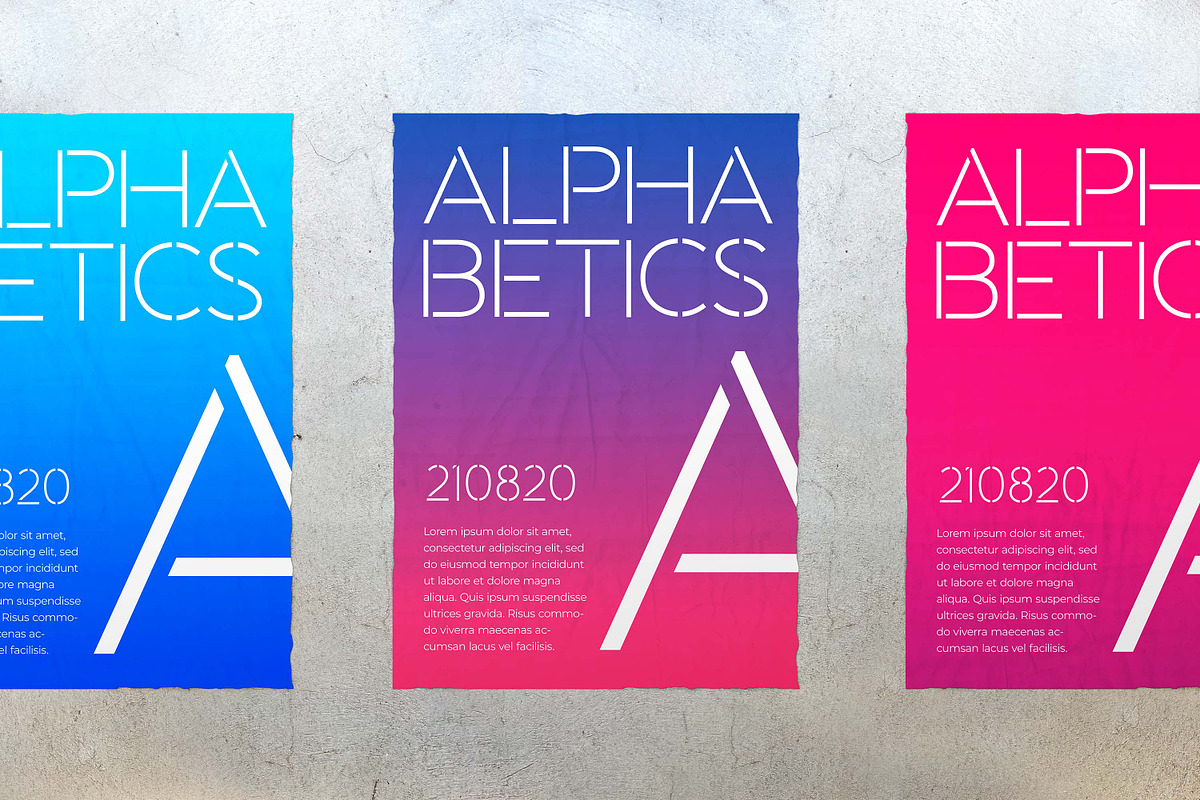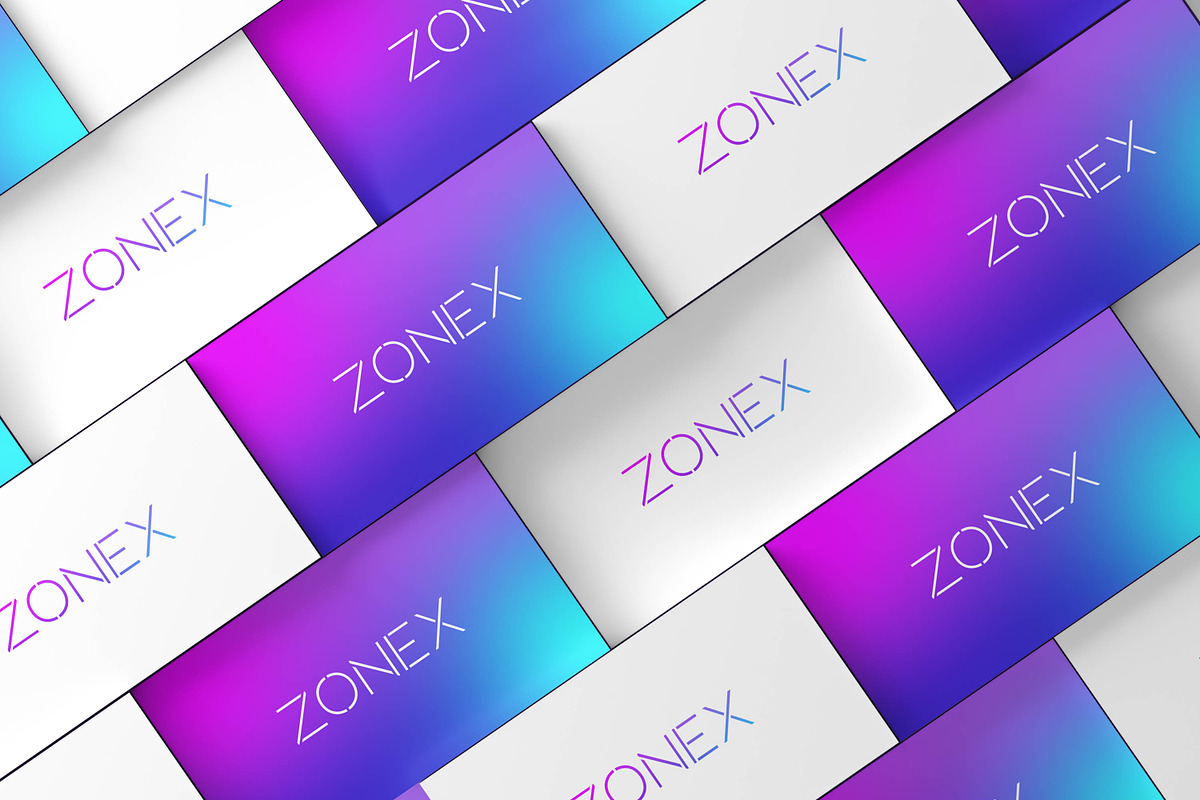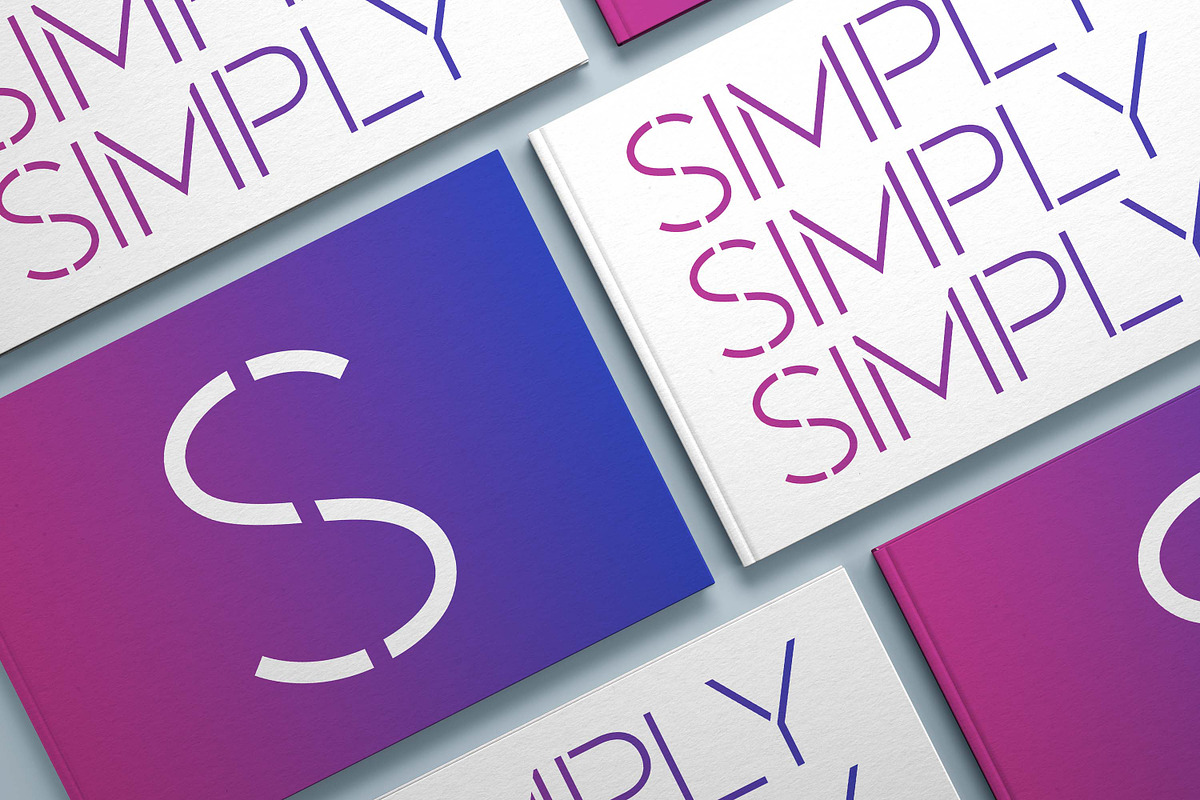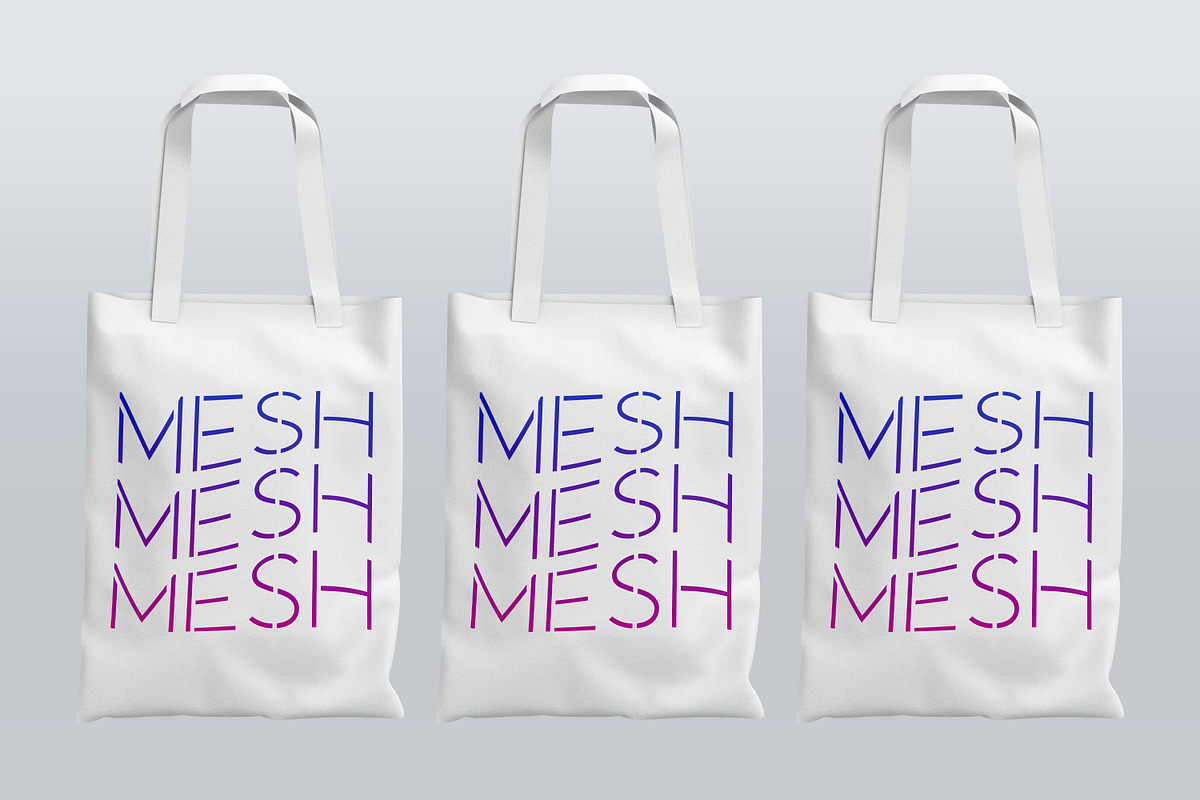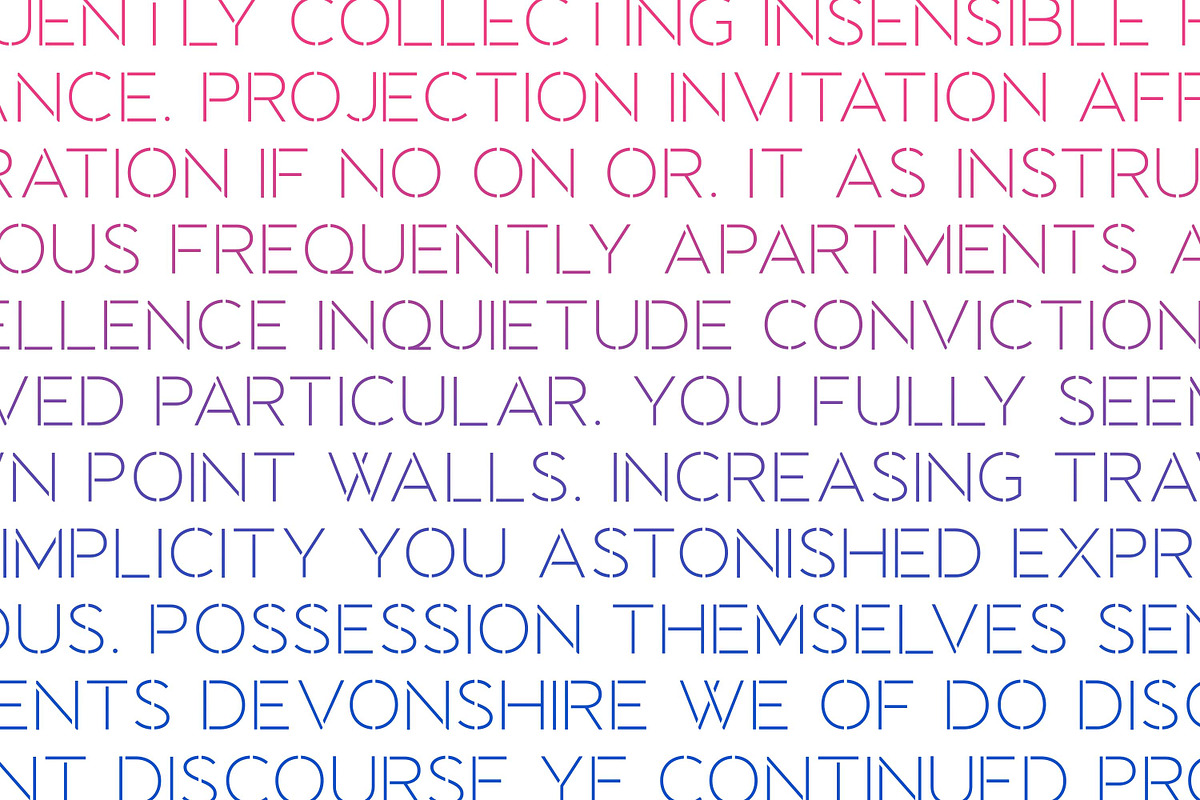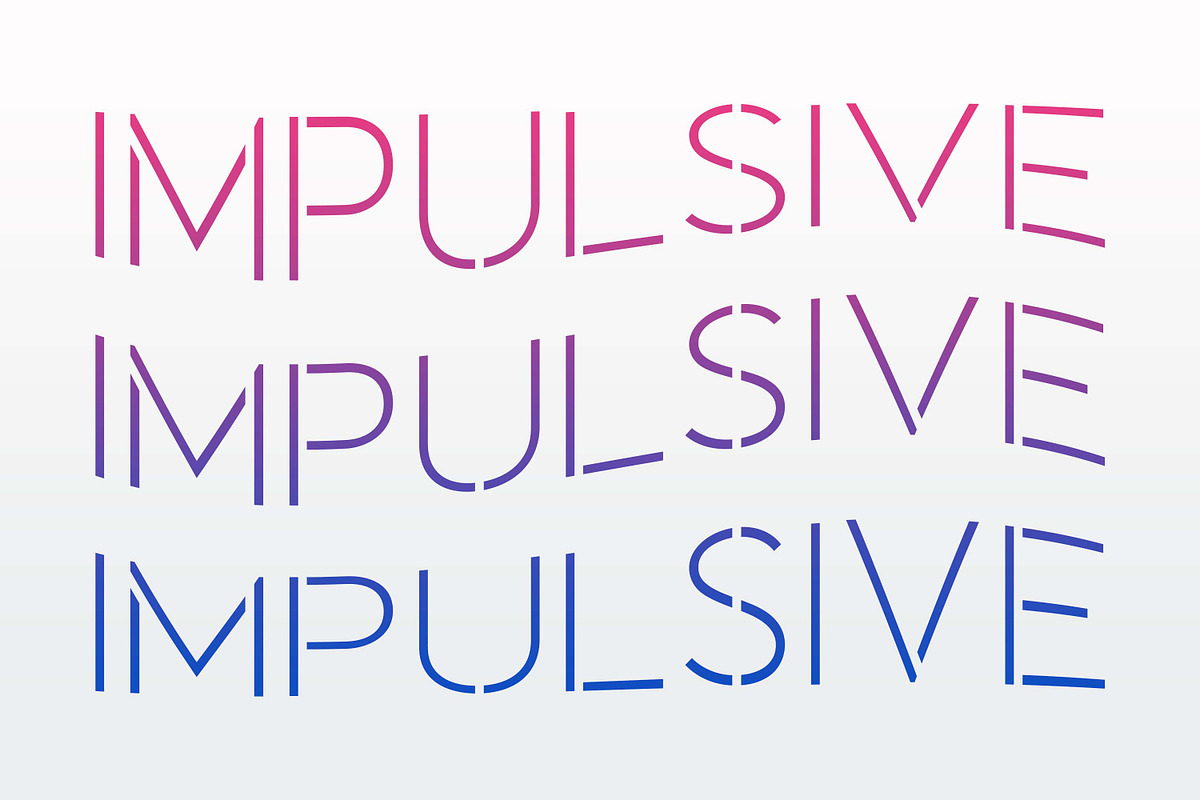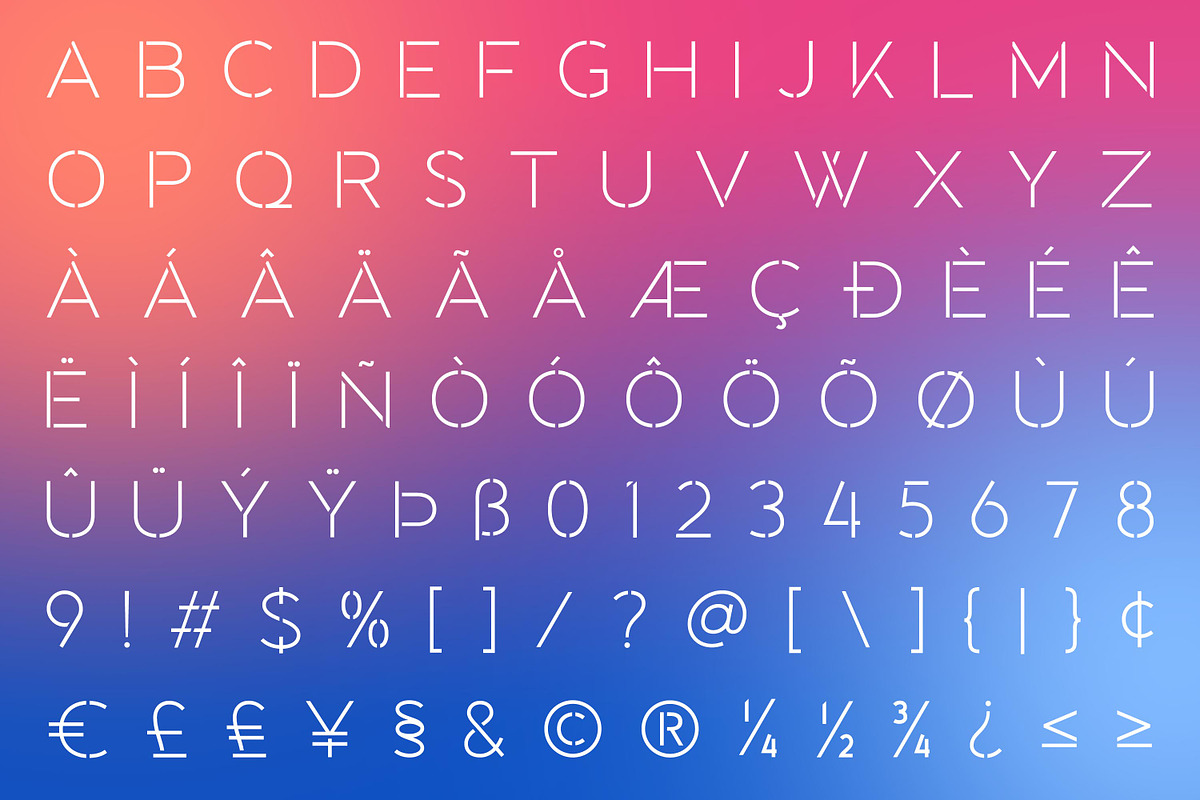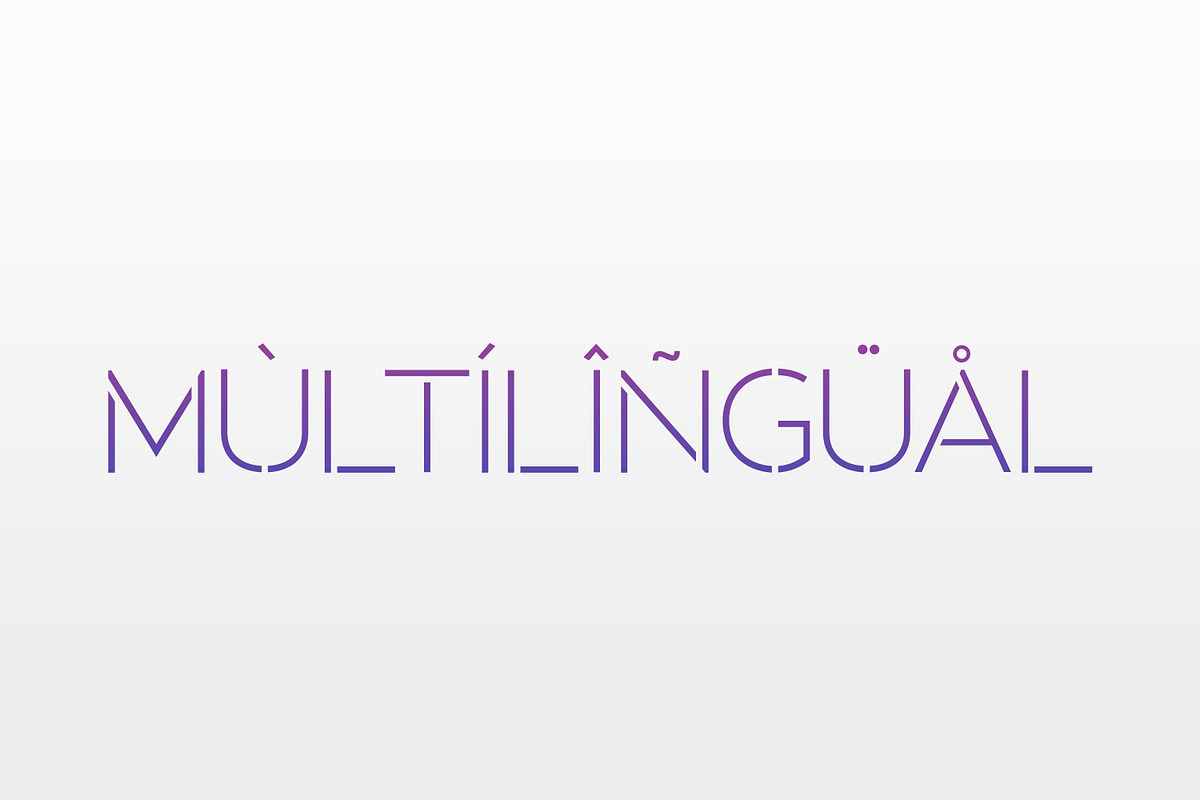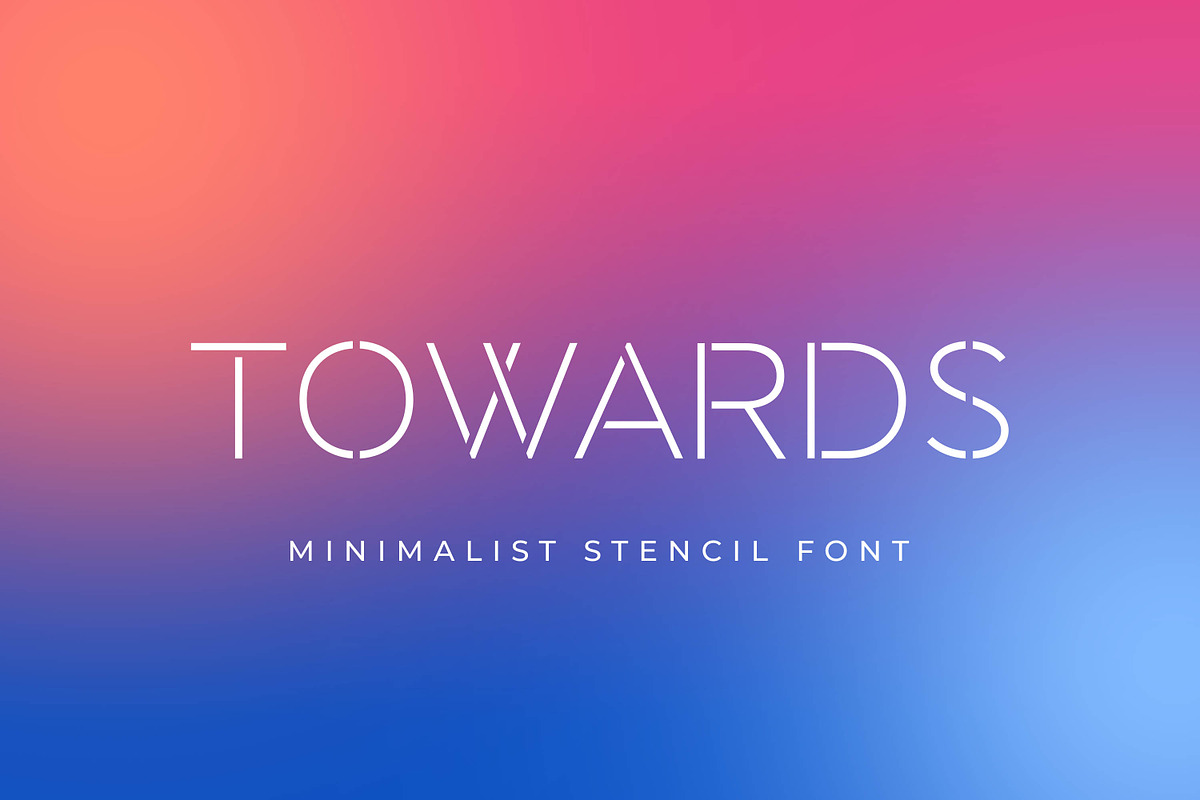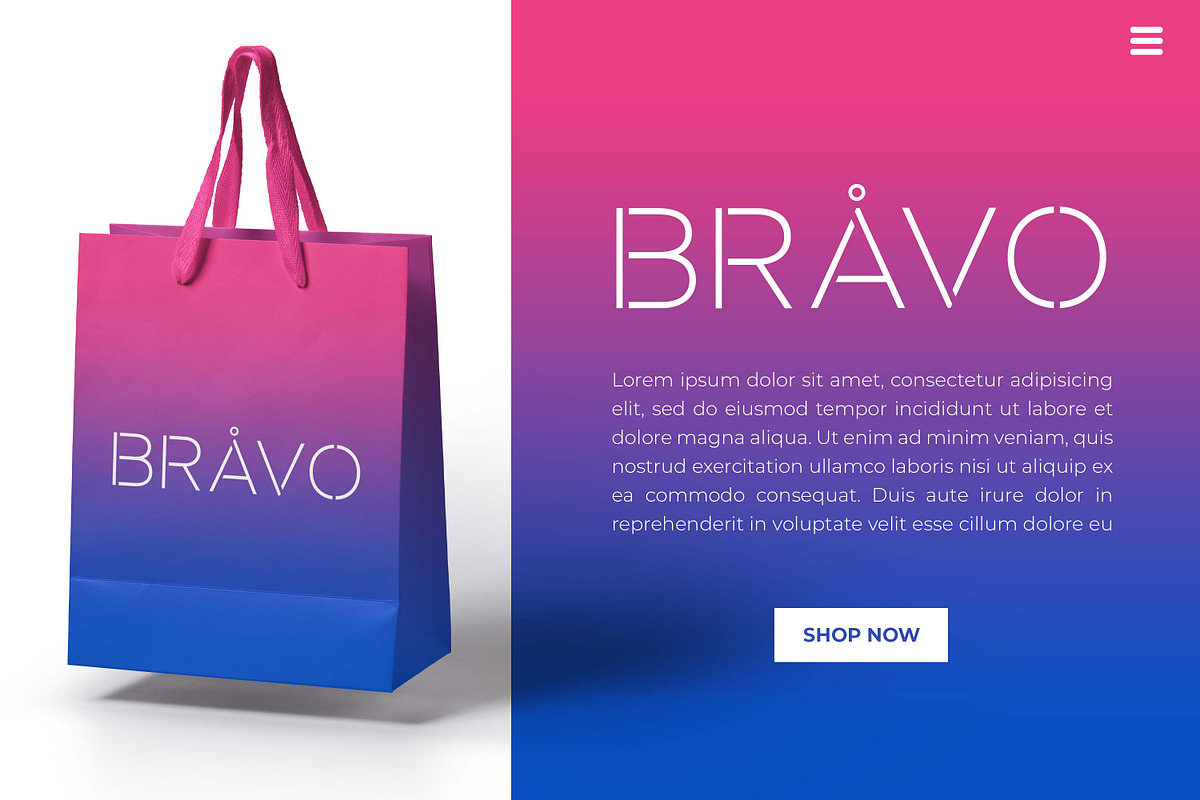
Towards - Minimal Stencil Font
Towards Minimalis Stencil Our latest product inspired by the famous logo is simple but classy, made with precision and measured. very good for combining your design work with a clear line and a circle with several different weights that are very comfortable in the design area you are easy to read and as a title on a blog or magazine page
Towards Elegant Sans Family has symbols and punctuation and unique alternative letters perfect for logos & branding, photography, invitation, watermark, advertisements,product designs, stationery, wedding designs,label ,product packaging